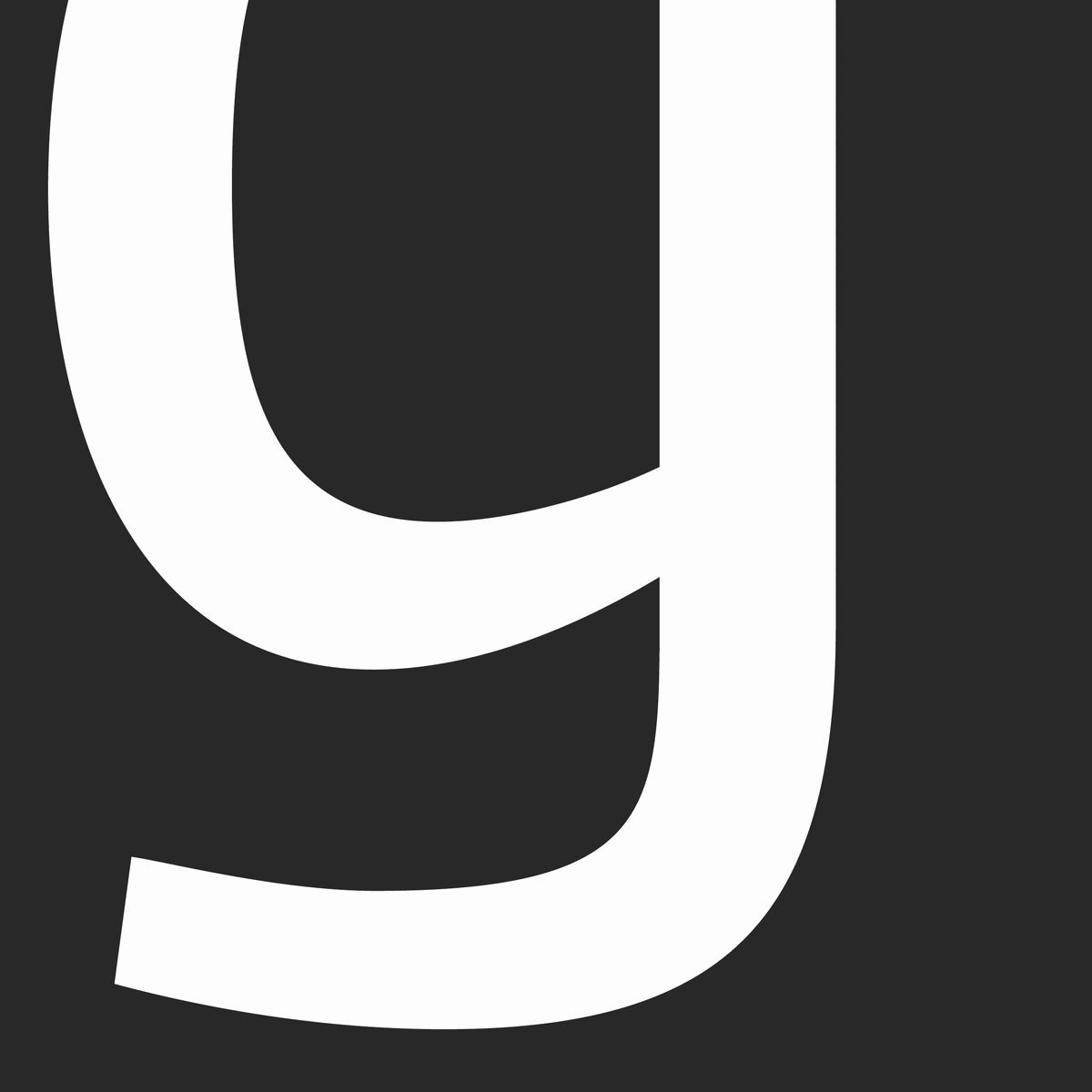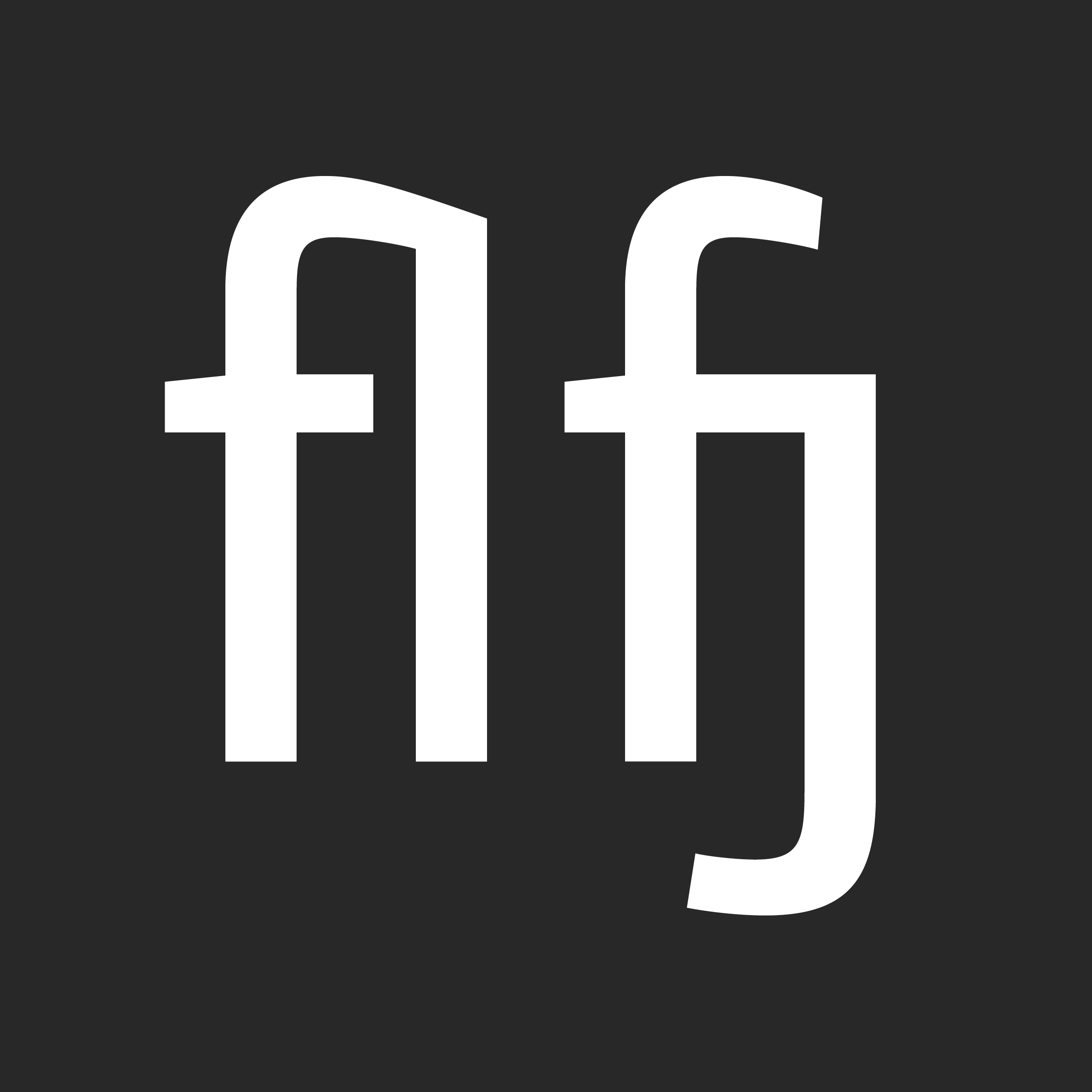
Sf Mora Sans is an elegant, contemporary, sans serif typeface, drawing on the aesthetics and the typographic standards of Swiss modernism. The distinctive stance was designed to give the right visual consistency for branding and communications. This authentic and original typeface represents the shifting contemporary aesthetics.
Sf Mora Sans supports up to 81 different languages such as Spanish, English, Portuguese, German, French, Turkish, Italian, Polish, Kurdish (Latin), Azerbaijani (Latin), Romanian, Dutch, Hungarian, Kazakh (Latin), Czech, Serbian (Latin), Swedish, Belarusian (Latin), Croatian, Slovak, Finnish, Danish, Lithuanian, Latvian, Slovenian, Irish, Estonian, Basque, Icelandic, and Luxembourgian in Latin and other scripts.